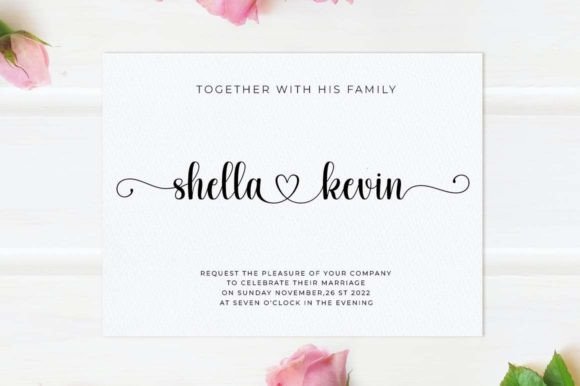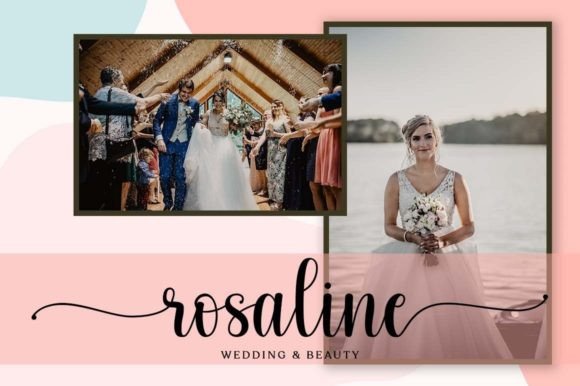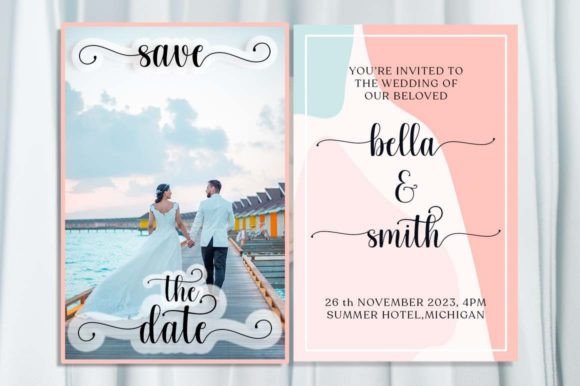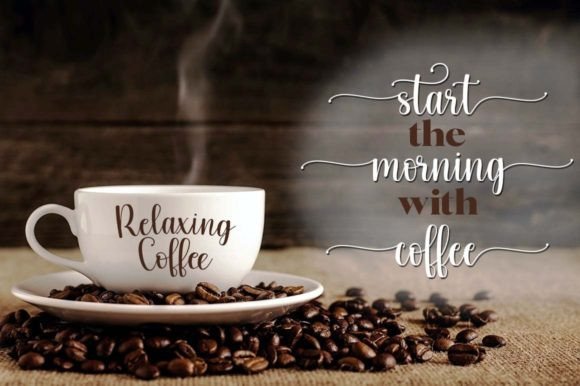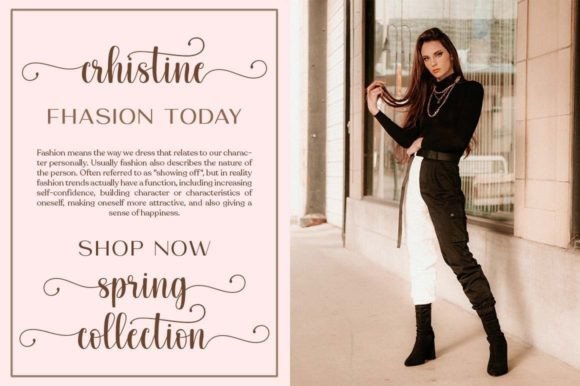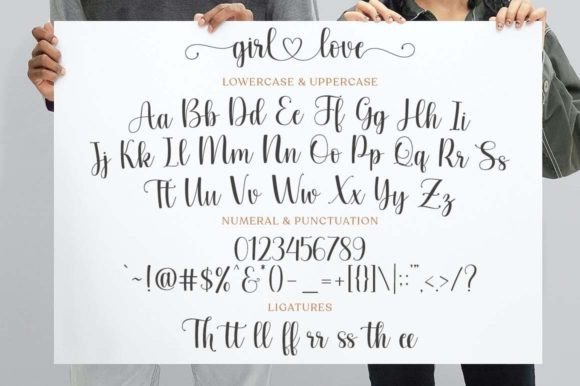
Introducing Girl Love Font: The Sweet Calligraphy Script for Your Design Needs
Are you a designer or crafter looking for a beautiful and elegant font to elevate your projects? Look no further than Girl Love Font, a stunning calligraphy script that exudes sweetness and sophistication. In this article, we’ll dive into the features and benefits of Girl Love Font, and explore how it can be used to make your business more beautiful.
What is Girl Love Font?
Girl Love Font is a gorgeous calligraphy script that boasts elegance and refinement throughout all its characters. This beautiful font is perfect for a wide range of projects, including advertising, branding, graphic design, quotes, wedding designs, logos for online or offline businesses, photography, and more. With Girl Love Font, you can add a touch of sweetness and sophistication to your designs, making them stand out from the crowd.
Key Features of Girl Love Font
So, what makes Girl Love Font so special? Here are some of its key features:
- Elegant Calligraphy Script: Girl Love Font features a beautiful, flowing calligraphy script that is both elegant and refined.
- PUA Encoded: This font is PUA encoded, which means you can access all of the glyphs and swashes with ease, giving you maximum flexibility and creative control.
- Wide Range of Uses: Girl Love Font is perfect for a variety of projects, from advertising and branding to graphic design, quotes, wedding designs, and more.
Benefits of Using Girl Love Font
So, why should you choose Girl Love Font for your design needs? Here are just a few benefits:
- Add a Touch of Elegance: With Girl Love Font, you can add a touch of elegance and sophistication to your designs, making them more visually appealing and effective.
- Stand Out from the Crowd: This beautiful font will help your designs stand out from the crowd, making them more noticeable and memorable.
- Easy to Use: Girl Love Font is easy to use and accessible, with PUA encoding that makes it simple to access all of the glyphs and swashes.
How to Use Girl Love Font
Using Girl Love Font is easy and straightforward. Here are a few tips to get you started:
- Choose Your Project: Decide on the project you want to use Girl Love Font for, whether it’s a logo, brochure, or social media graphic.
- Access Glyphs and Swashes: Use the PUA encoding to access all of the glyphs and swashes, and experiment with different combinations to find the perfect look for your project.
- Get Creative!: Let your creativity shine! Use Girl Love Font to create stunning designs that showcase your unique style and vision.
Girl Love Font is perfect for designers and crafters who want to add a touch of elegance and sophistication to their projects. Whether you’re creating logos, brochures, or social media graphics, this beautiful font is sure to impress. With its ease of use and flexibility, Girl Love Font is a must-have for any designer or crafter looking to elevate their designs.
In conclusion, Girl Love Font is a stunning calligraphy script that is perfect for designers and crafters looking to add a touch of elegance and sophistication to their projects. With its PUA encoding, ease of use, and flexibility, this beautiful font is sure to become a favorite in your design arsenal. So why wait? Download Girl Love Font today and start creating stunning designs that showcase your unique style and vision!